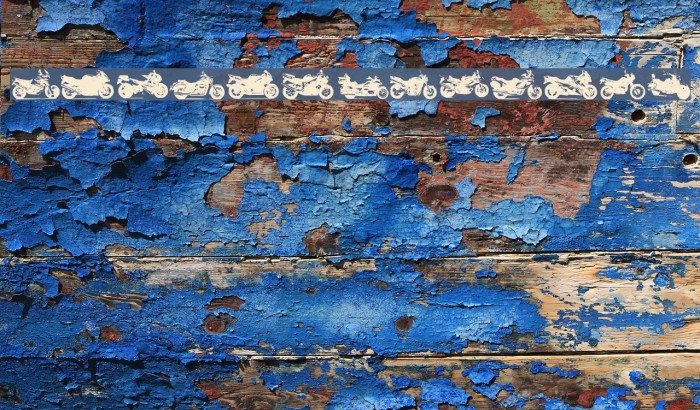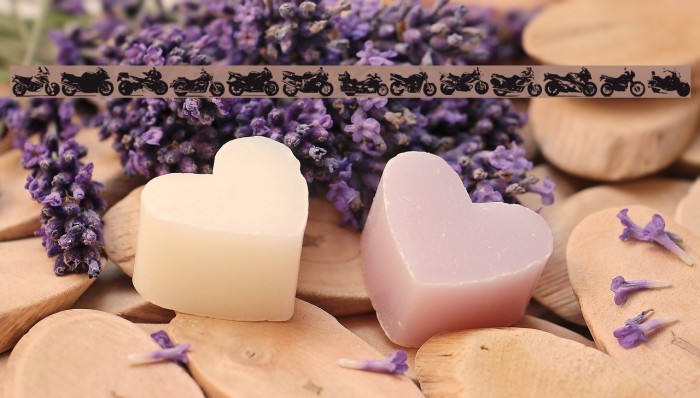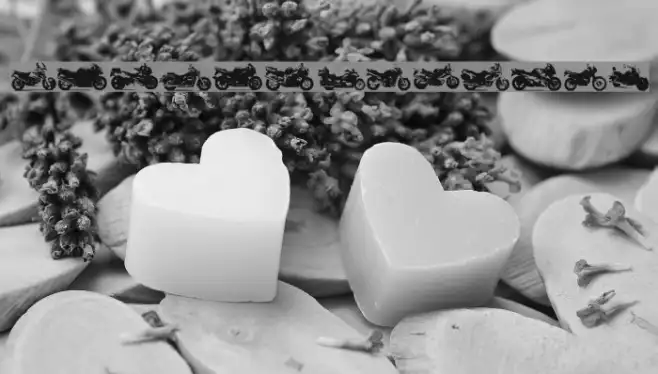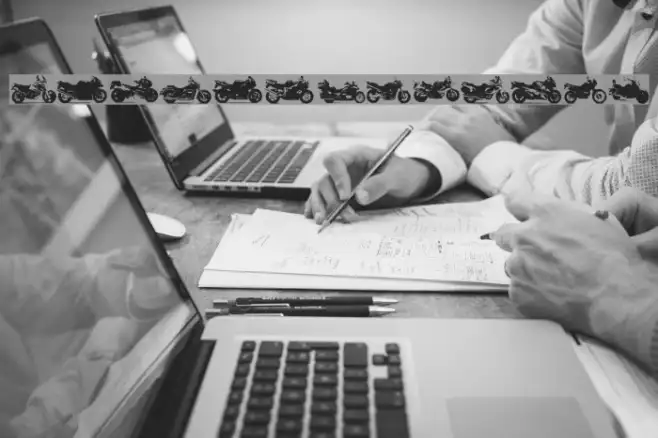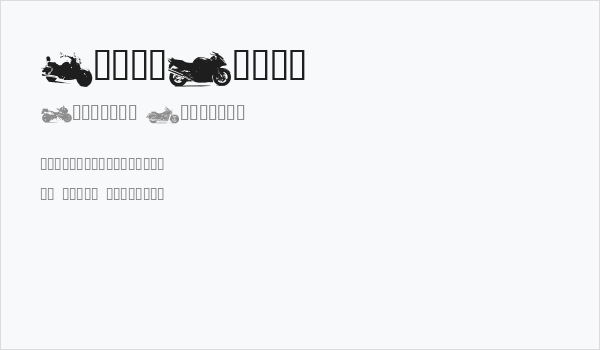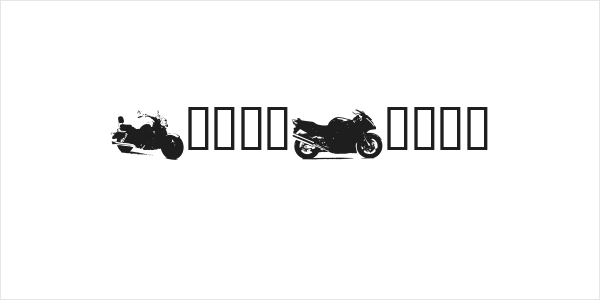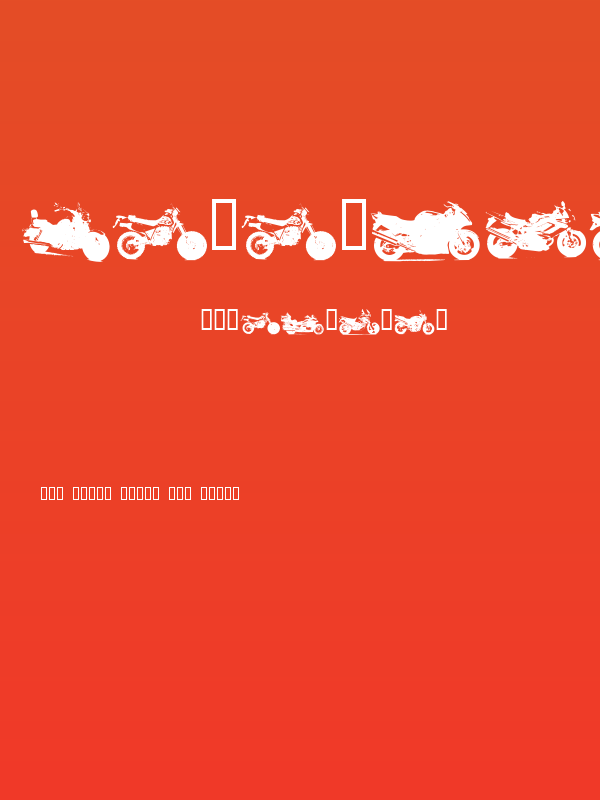
MotorBikez Font
MotorBikez Description
A decorative display font featuring detailed motorcycle silhouettes as glyphs, each character represented by a unique motorcycle illustration in black and white.
| Overall Style | Decorative, Thematic, Novelty |
| Use Case | Logos, Posters, Themed Graphics |
| Proposed Projects | Event posters, themed party invitations, automotive branding, novelty merchandise, custom stickers. |